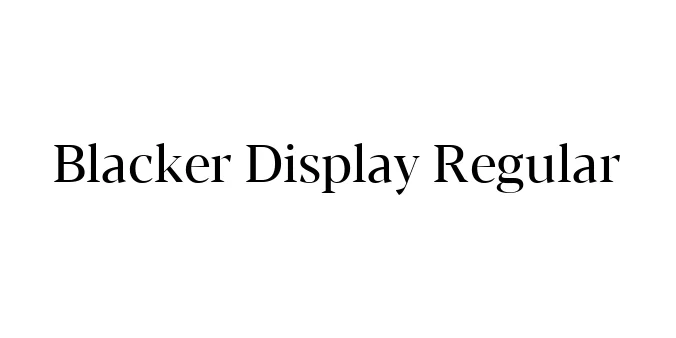
Blacker Display Regular
Designed by Cosimo Lorenzo Pancini and Francesco Canovaro
Blacker Display Regular is a wedge serif typeface family designed by Cosimo Lorenzo Pancini and Francesco Canovaro for Zetafonts. It belongs to the contemporary 'evil serif' subgenre, characterized by sharp, high-contrast triangular serifs and a strong 1970s personality. This typeface was conceived as a tribute to the aesthetics of the late 20th century, blending classical proportions with aggressive, contemporary details to create a unique visual impact.
The Display version is specifically optimized for large-scale applications, featuring more dramatic contrast and tighter spacing than its text counterpart. It takes inspiration from the work of legendary designers like Herb Lubalin, offering a sophisticated yet edgy look that is perfect for modern editorial design and high-end branding projects where character and elegance are paramount.
Blacker Display Regular Best Uses
Perfect for high-impact magazine headlines and sophisticated layout titles.
Excellent for luxury fashion brands and premium identity systems.
Highly effective for eye-catching posters and digital marketing campaigns.
Ideal for cinematic titles, book covers, and hero sections on websites.